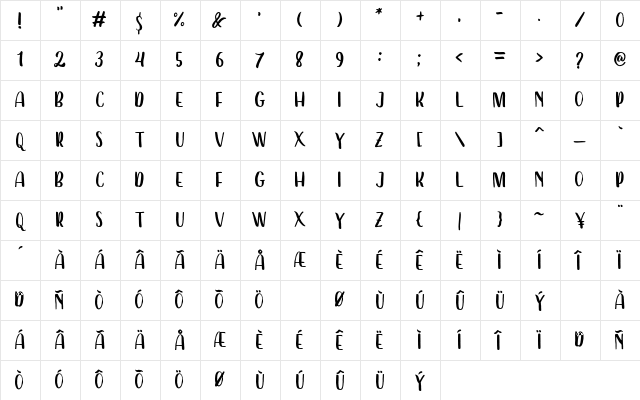
Dearday Sans Free Font
Dearday Sans
Style: Sans
Foundry: Letterhend Studio
Designer: Letterhend Studio
Design Context for Dearday
Dearday is a composed and adaptable typeface that performs quietly and consistently across a wide range of design contexts.
Who designed the Dearday Sans font?